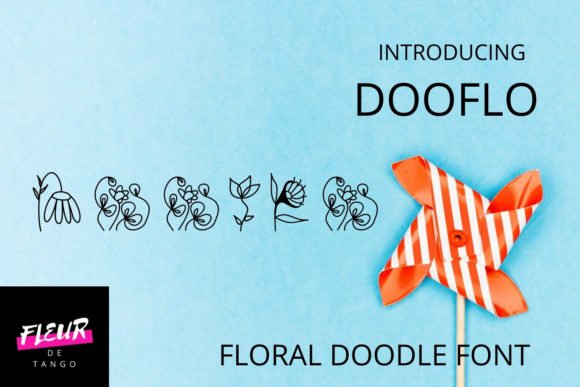
The Secret to Making Your Designs Shine: Introducing the Dooflo Font
Do you ever find yourself staring at a blank page, wondering how to bring your creative ideas to life? You’ve got a concept, a vision, and a passion, but something’s missing. That’s where the magic of typography comes in. A single font can elevate your design from bland to grand, and that’s exactly what the Dooflo Font does.
This unique and incredibly sweet dingbats font is designed to add an extra layer of whimsy and personality to your creations. Whether you’re a seasoned designer or a creative enthusiast, the Dooflo Font is the perfect tool to help you stand out from the crowd. With its playful and eye-catching characters, this font is sure to make your designs shine and leave a lasting impression.
Key Features of Dooflo Font
- Unique Characteristics: Features a playful, whimsical style with a mix of rounded and pointed shapes, making it perfect for creating eye-catching designs.
- Character Set: Includes a wide range of characters, including uppercase and lowercase letters, numerals, punctuation marks, and special symbols.
Designer Review: Dooflo Font
Overall, I’d say Dooflo Font is an interesting addition to the world of fonts. While it may not be for everyone, it has some unique features that could make it a great choice for certain projects.
- ✨ Unique aesthetic: Dooflo Font has a distinct, playful feel that could add a touch of whimsy to your design.
- ✨ Versatile: The font comes in multiple weights and styles, making it suitable for a range of applications, from headlines to body text.
- ✨ Customizable: The font’s creator has provided a range of customization options, allowing you to tailor the font to your specific needs.
- ⚠️ Limited legibility: While Dooflo Font is great for headings, it may not be the most readable font for large blocks of text.
- ⚠️ Not suitable for formal designs: The font’s playful nature may make it better suited for creative or informal projects rather than formal or professional ones.
- ⚠️ Some characters may not render correctly: I noticed some issues with character spacing and rendering, particularly at smaller font sizes.
Overall, Dooflo Font is a fun and versatile addition to any designer’s toolkit. While it may have some limitations, its unique aesthetic and customization options make it a great choice for the right project.
Dooflo Font is ideal for creating playful and whimsical designs. Some common use cases include: